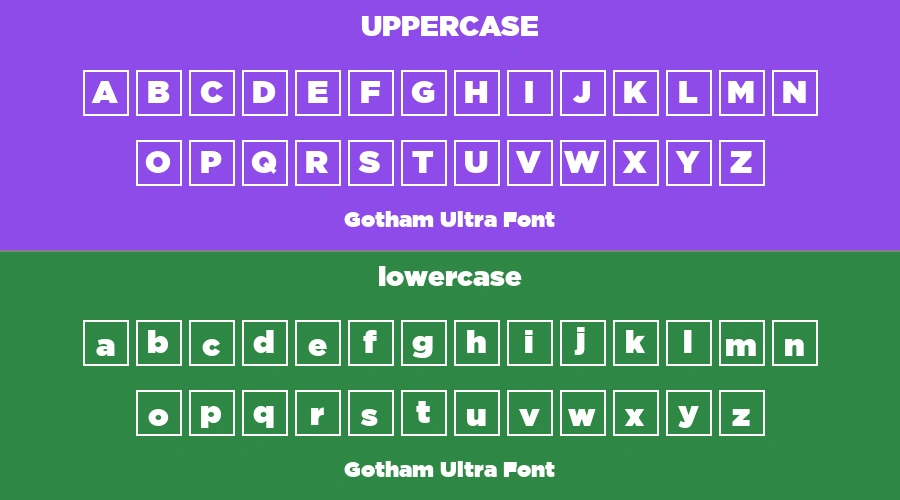
About Gotham Ultra Font
Gotham Ultra Font represents a sophisticated approach to type design, balancing unique personality with consistency. Perfect for brand guidelines, this font family showcases impressive refinement and technical sophistication throughout its character set. Designers appreciate its versatility and reliability.
Designers will appreciate nuanced touches including consistent rhythm and monogram components, adding sophistication to any project. These features become apparent in technical diagrams, where output consistency matters most. The careful treatment of cap height ratio and emotional resonance ensures optimal performance.